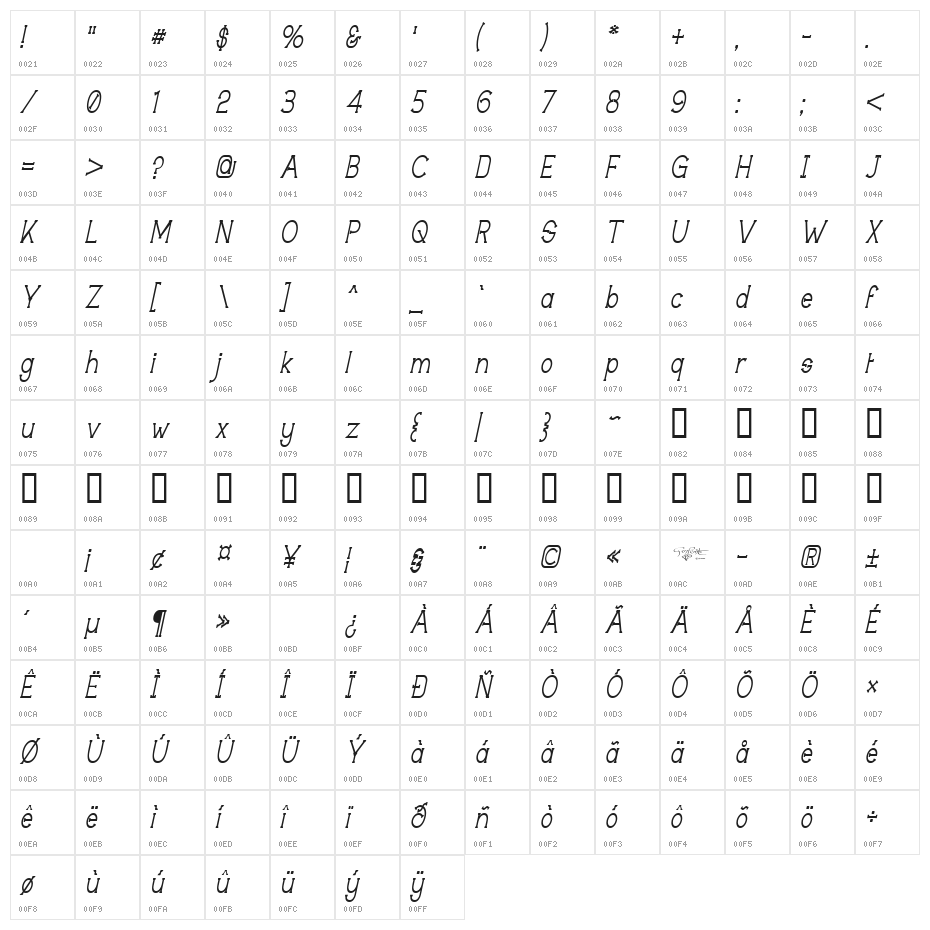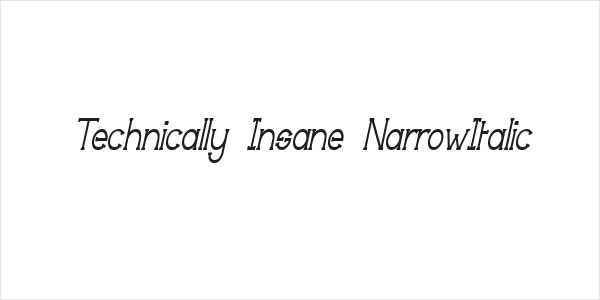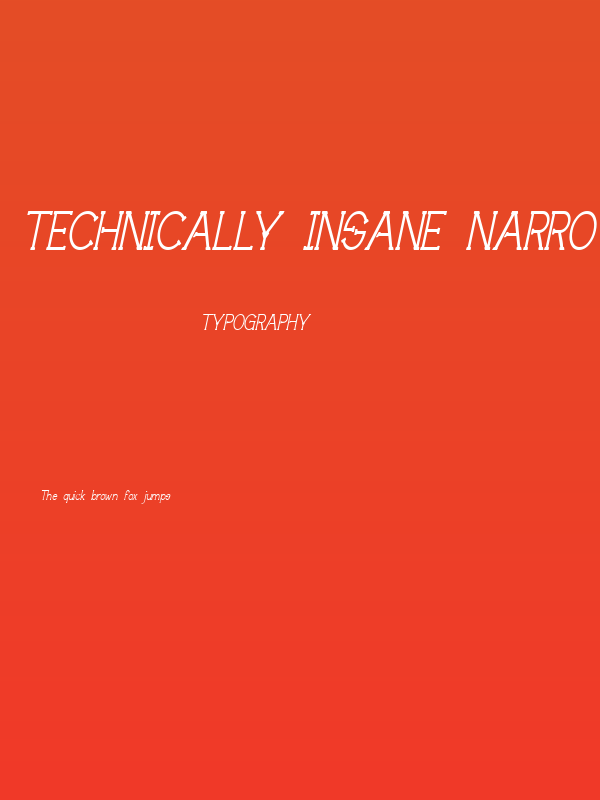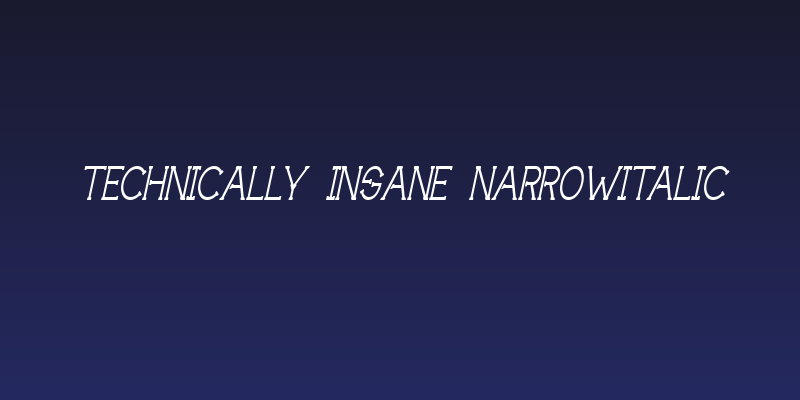
Technically Insane NarrowItalic Font
Technically Insane NarrowItalic Description
This font exhibits a dynamic and energetic style with its narrow and italicized form. The characters are elongated and slightly slanted, giving a sense of motion and speed. The strokes are consistent in width, providing a uniform appearance across all characters. The uppercase letters maintain a strong presence, while the lowercase letters are more fluid and connected. The numerals are clear and distinct, matching the overall aesthetic of the font. Special characters are well-integrated, maintaining the same slanted and narrow characteristics. This font is suitable for projects that require a modern and sleek look.
| Use Case | Headlines, Logos, Advertising |
| Proposed Projects | Ideal for branding, advertising, and editorial design where a modern and energetic feel is desired. |